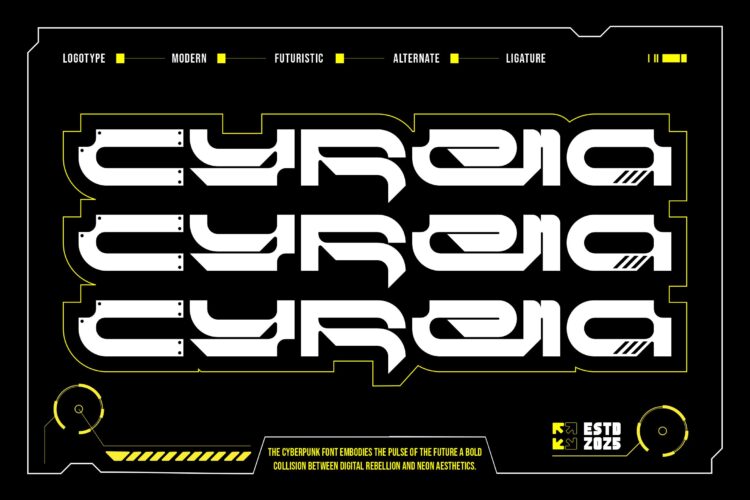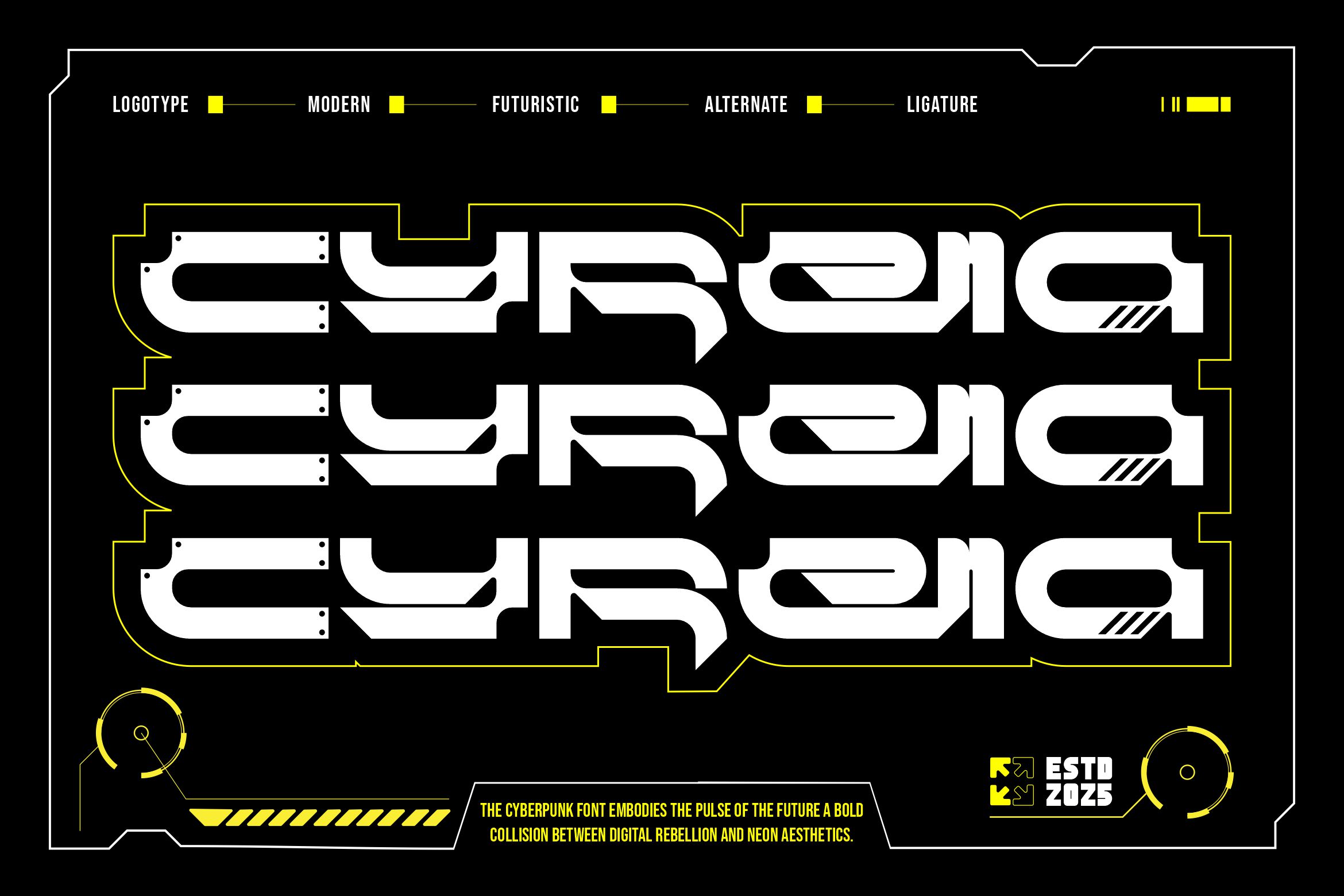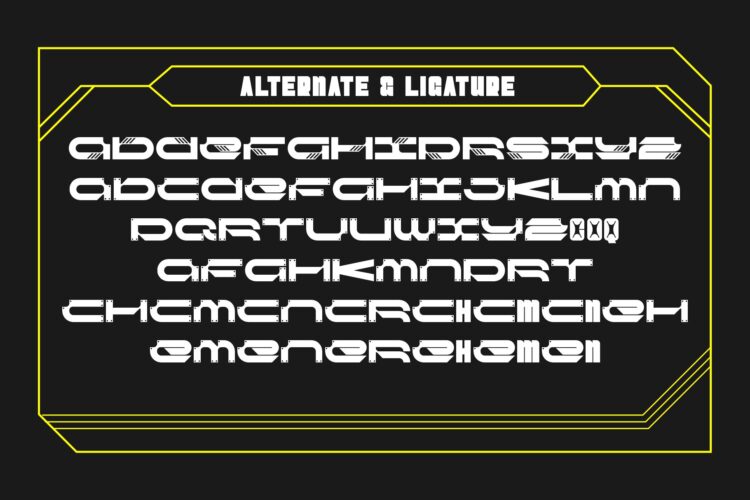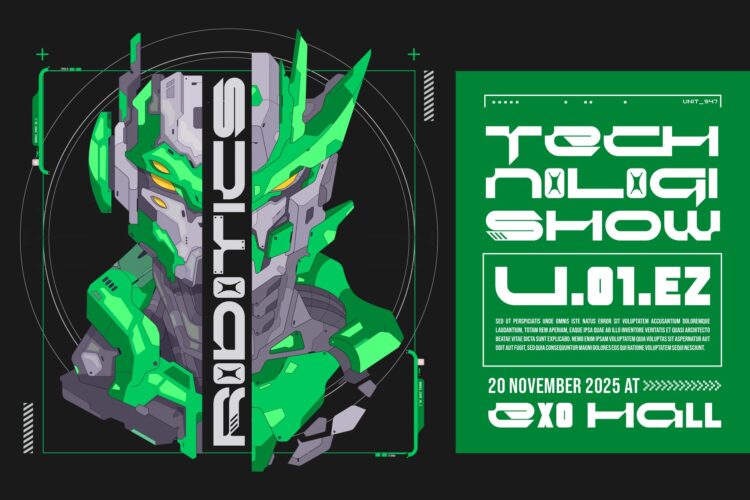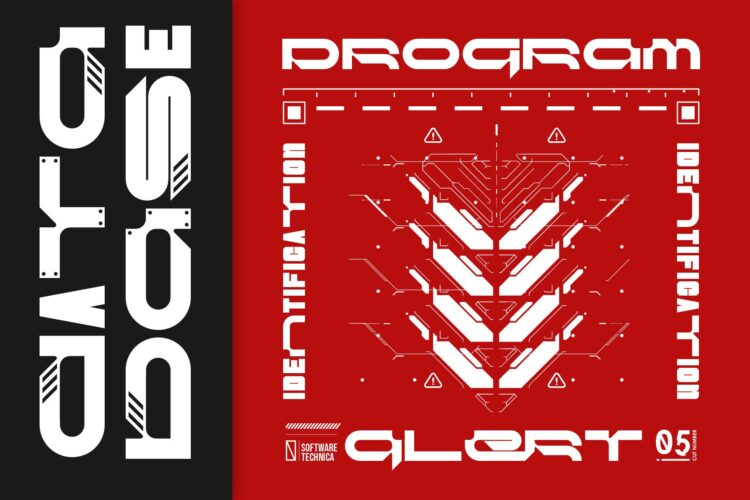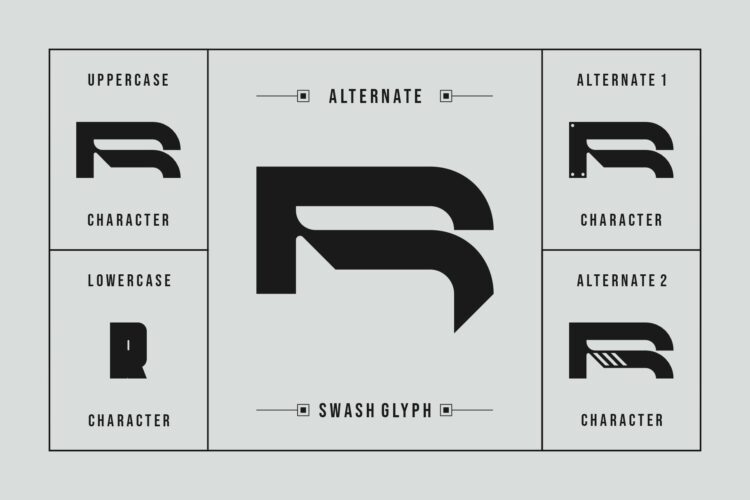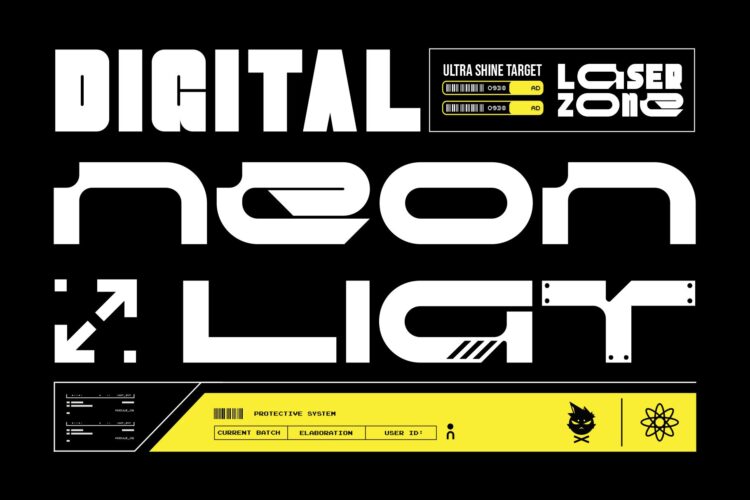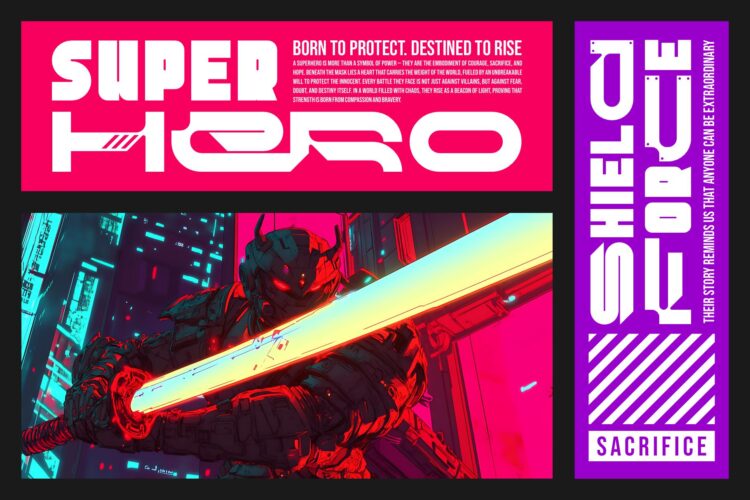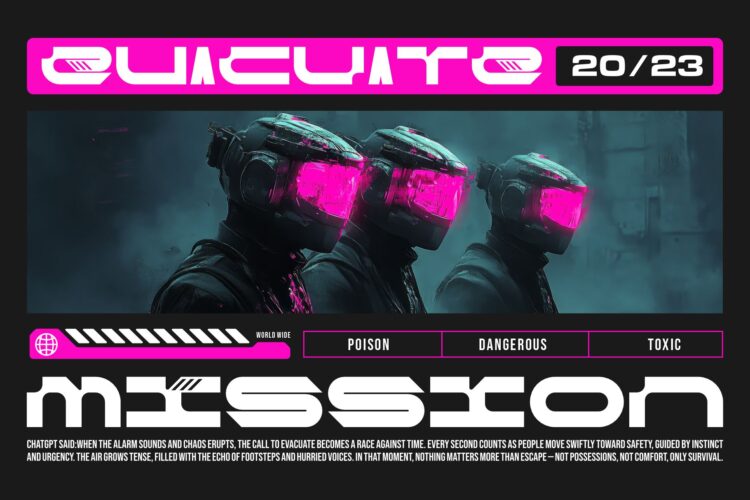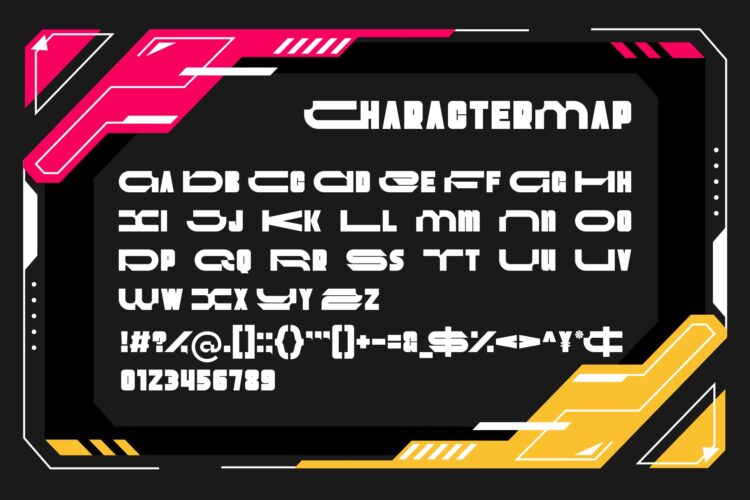
Cyrena
Cyrena Display is a modern and futuristic font type for all branding and logo designs. This modern and futuristic Serif font has a beautiful character. This font is suitable for invitation card designs, cool logos, movie titles, movie names, business cards, book titles, brand names, and various other designs. Cyrena Display is a smooth font that exudes sophistication and the moment. Its stylish alternate make this font a perfect partner for any project.
Cyrena || Modern Futuristic Display Font